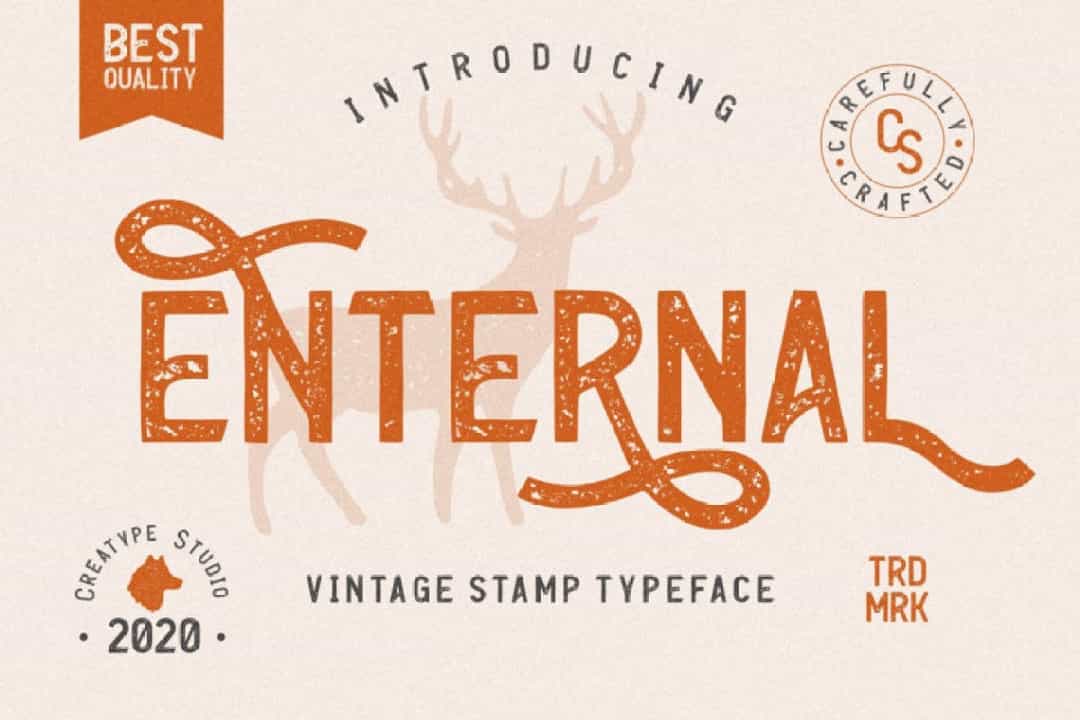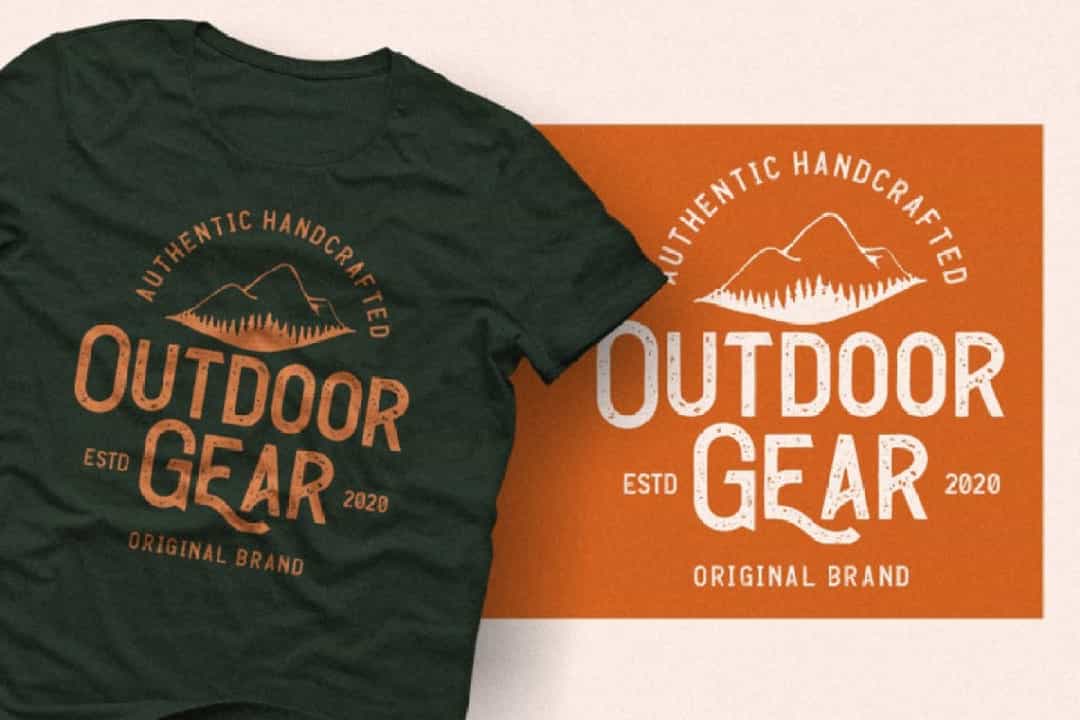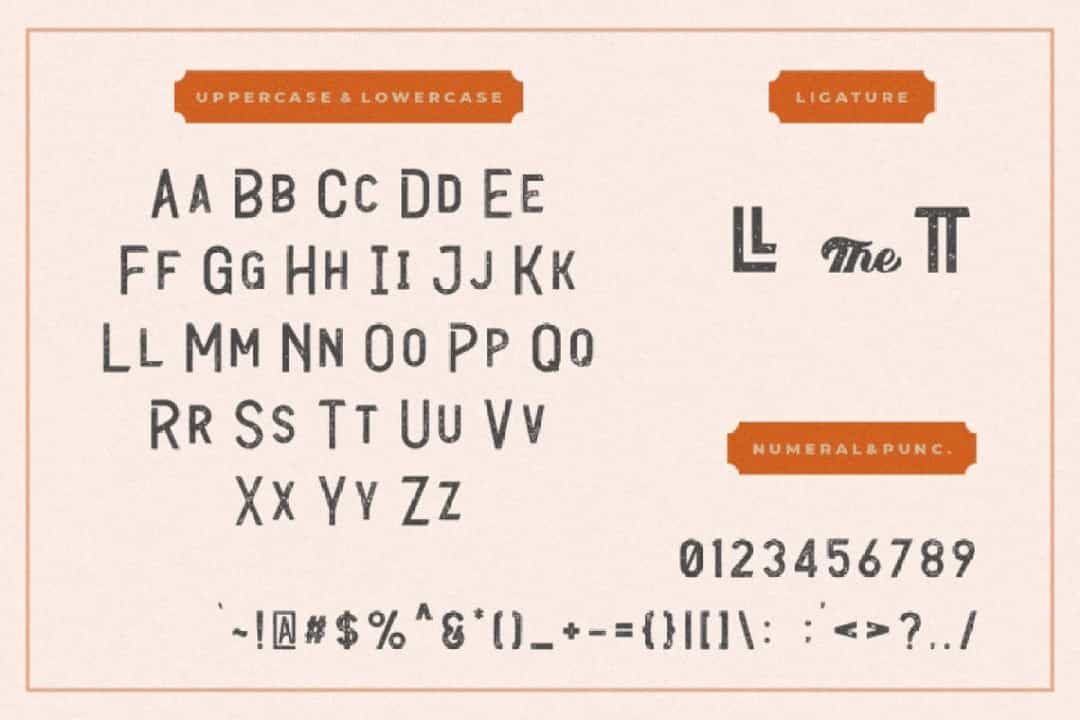
Enternal is a vintage sans-serif font that also features the look of stamped text on textured surfaces and has a distinctive ligature and a selection of different styles. It is perfect for logos, branding, weddings, advertisements, social media, packaging, product designs, labels, photos, stationery, invitation designs, watermarks, and any project that requires a handwritten touch including writing with handwriting.